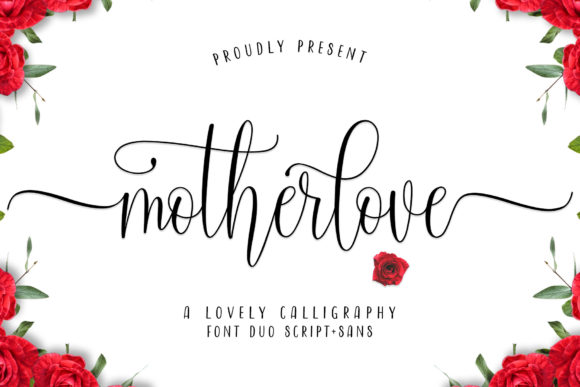
Behold Motherlove Font, a sartorial symphony of sans serif and script fonts that exudes elegance and refinement. This typographic masterpiece is the brainchild of MJB Letters, a renowned foundry known for its artistic flair.
Immerse yourself in the world of Motherlove, where sophistication and allure intertwine. Its crisp sans serif strokes dance alongside the flowing grace of its script counterpart, creating a visual harmony that captivates the senses. Whether you're a seasoned designer or a creative enthusiast, Motherlove will elevate your projects to new heights of beauty and distinction.
With Motherlove, you'll embark on a creative odyssey, where words transform into art and messages blossom with newfound eloquence. Its stylish alternates and ligatures are like secret treasures, waiting to be discovered and woven into your design tapestry. Unleash your imagination and let Motherlove guide you towards typographic excellence.
But Motherlove is more than just a font; it's a gateway to self-expression, a tool that empowers you to make a statement and leave an indelible mark on the world. Its PUA encoding grants you effortless access to a realm of glyphs and swashes, unlocking endless possibilities for customization and creativity.
So, why settle for ordinary when you can embrace the extraordinary? Embrace Motherlove Font today and embark on a typographic journey that will ignite your passion and leave your audience spellbound.